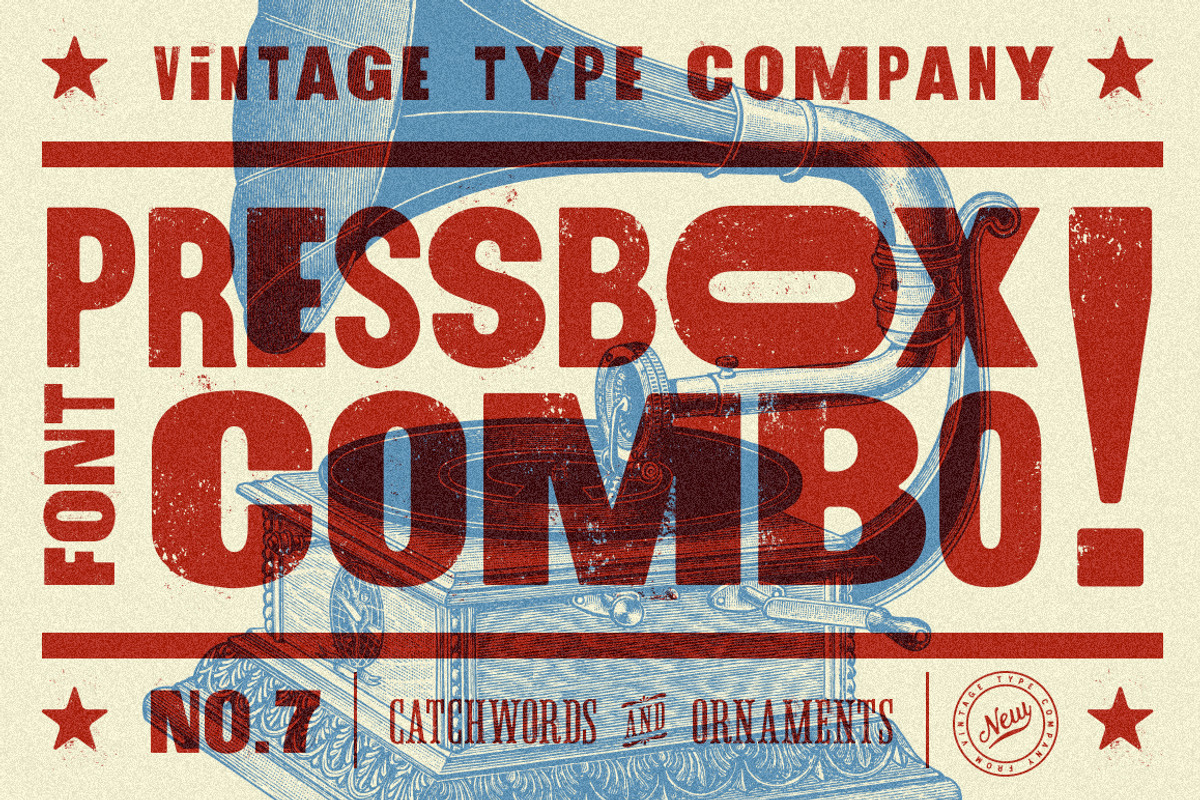
Unleash the raw energy of vintage printing with PressBox Combo Font — a dynamic, Americana-inspired type family that captures the rebellious spirit of metal-type typography. Designed for creators who crave authenticity and visual impact, this font suite delivers a powerful combination of rugged aesthetics, flexible styling, and multilingual precision. Whether you’re crafting a protest poster, designing a vintage-inspired logo, or illustrating a music album cover, PressBox Combo delivers the grit, drama, and character that generic fonts simply can’t match.
Powerful Typography Built for Impact
At the heart of PressBox Combo are two striking fonts: PressBox Display and Virgo Display, each engineered for maximum visual punch. PressBox Display offers a revolutionary feature — you can dynamically adjust the width of your glyphs simply by switching between uppercase and lowercase letters. This clever design trick allows you to control spacing and rhythm with ease, giving your layout a hand-set, artisanal feel that’s both modern and nostalgic.
Meanwhile, Virgo Display brings a condensed, stylized serif with sharp spurs and elegant flourishes. Available in all-caps with a sophisticated small-cap lowercase, this font is perfect for headlines that demand attention. Use it to emphasize brand names, product lines, or event titles with a sense of authority and refinement.
Enhanced Creativity with Virgo Ornaments
Take your design to the next level with Virgo Ornaments — a bonus font that includes a rich library of decorative elements, catchwords, and ornamental borders. From vintage-style flourishes to geometric dividers, these elements are built to add texture and personality to your projects. Whether you’re framing a section of text or creating a standalone decorative layout, Virgo Ornaments gives you the tools to construct full-featured, visually immersive designs.
Each font comes in an alternate inked style, giving you a second dimension of expression. Apply the inked version to simulate the natural imperfections of vintage printing — smudges, uneven strokes, and subtle texture — to give your work a hand-crafted, authentic feel that stands out in digital environments.
Full Multilingual Support for Global Creativity
With full accent support, ligatures, and language-specific character substitutions, PressBox Combo maintains typographic integrity across diverse scripts. This makes it ideal for international branding, multilingual publications, and multicultural marketing campaigns.
Designed for Real-World Creative Workflows
Where PressBox Combo Shines: Creative Applications
From bold signage to intimate editorial layouts, PressBox Combo adapts to a wide range of design needs:
- Brand Identity & Logos – Create powerful, memorable logos with a vintage edge for music labels, craft breweries, fashion brands, and lifestyle startups.
- Poster & Event Design – Make every concert, festival, or art show feel like a moment from the past with striking headlines and decorative borders.
- Magazine & Editorial Layouts – Add retro flair to cultural features, book covers, and news articles with a font that tells a story through its style.
- Video Titles & Motion Graphics – Bring authenticity to animations, intros, and title sequences with a font that carries the weight of history.
- Merchandise & Packaging – Elevate t-shirts, mugs, boxes, and bags with labels that feel handmade and full of character.
PressBox Combo Font isn’t just a typeface — it’s a design philosophy. It merges old-world craftsmanship with modern flexibility, empowering you to create with confidence, authenticity, and bold expression. The inked alternates, dynamic width control, and rich ornamentation make it stand apart from standard font families.